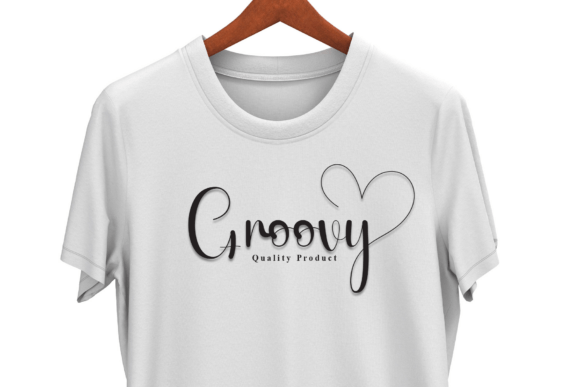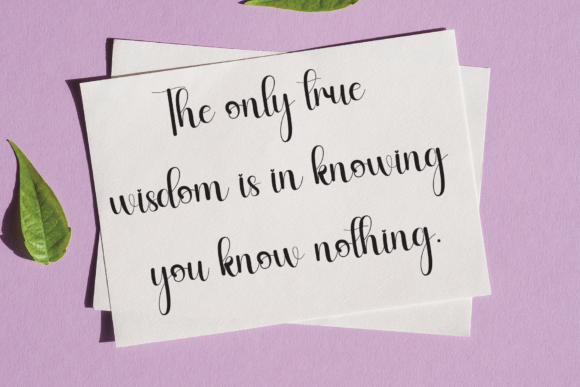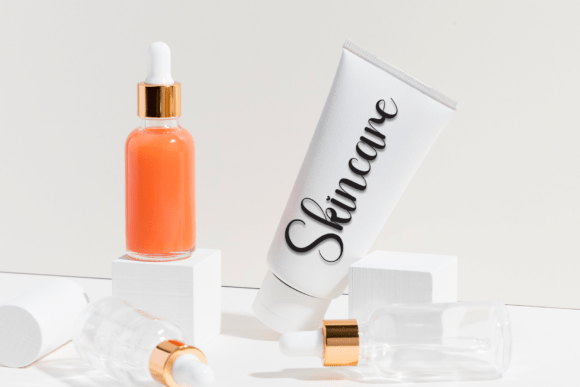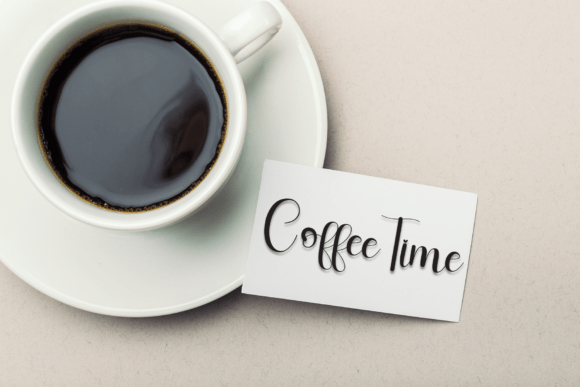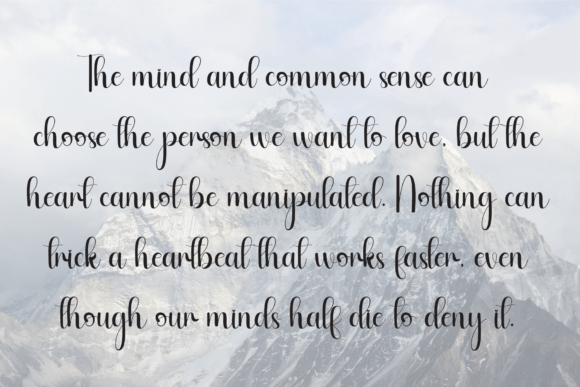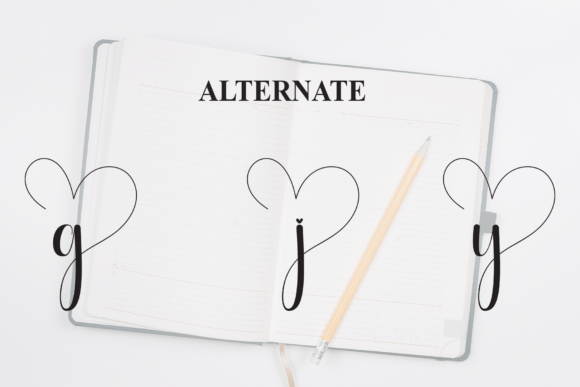
Introducing Diary Font: The Playful Charm for Your Designs
Are you looking for a font that can add a touch of warmth and playfulness to your designs? Look no further than Diary Font, a handwritten display font that is sure to sprinkle love in every keystroke. With its endearing and warm style, this font is perfect for wedding invites, heartfelt greeting cards, and any other design seeking a touch of jovial grace.
The Characteristics of Diary Font
Diary Font is a unique and engaging font that is designed to infuse whimsical delight in your creations. Its handwritten style gives it a personal and intimate feel, making it perfect for designs that require a touch of warmth and personality. The font’s playful charm is sure to capture the attention of your audience and leave a lasting impression.
Perfect for Wedding Invites and Greeting Cards
Wedding invites and greeting cards are special occasions that require a font that can convey love, warmth, and personality. Diary Font is perfect for these occasions, as it adds a touch of jovial grace and whimsy to your designs. Whether you’re designing a wedding invitation or a heartfelt greeting card, this font is sure to make your design stand out.
Adding a Touch of Fun to Your Designs
Design doesn’t have to be boring! With Diary Font, you can add a touch of fun and playfulness to your creations. This font is perfect for designers and crafters who want to create designs that are engaging, interactive, and memorable. Whether you’re designing a children’s book, a party invitation, or a social media graphic, Diary Font is sure to bring a smile to your audience’s face.
Why Choose Diary Font?
There are many fonts to choose from, but Diary Font stands out from the rest. Here are just a few reasons why:
- Unique and Engaging: Diary Font is a one-of-a-kind font that is sure to capture the attention of your audience.
- Playful and Whimsical: This font adds a touch of playfulness and whimsy to your designs, making them more engaging and memorable.
- Perfect for Wedding Invites and Greeting Cards: Diary Font is specifically designed for special occasions, making it perfect for wedding invites and greeting cards.
Diary Font is a unique and engaging font that is perfect for designers and crafters who want to add a touch of playfulness and whimsy to their creations. With its handwritten style and playful charm, this font is sure to capture the attention of your audience and leave a lasting impression. Whether you’re designing a wedding invitation, a greeting card, or a social media graphic, Diary Font is the perfect choice. So why wait? Download Diary Font today and start sprinkling love in every keystroke!